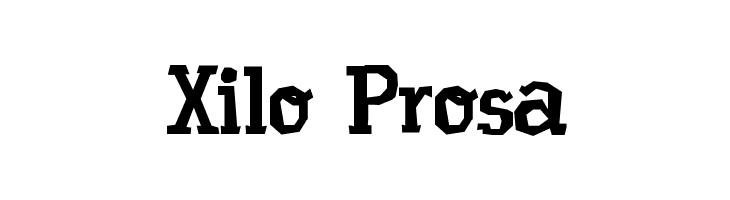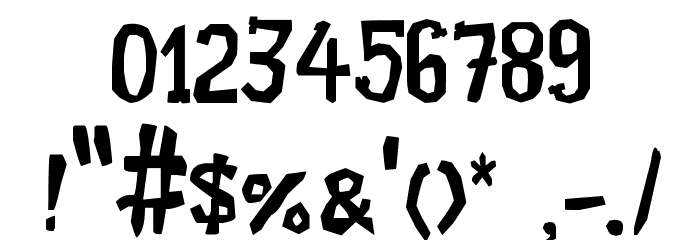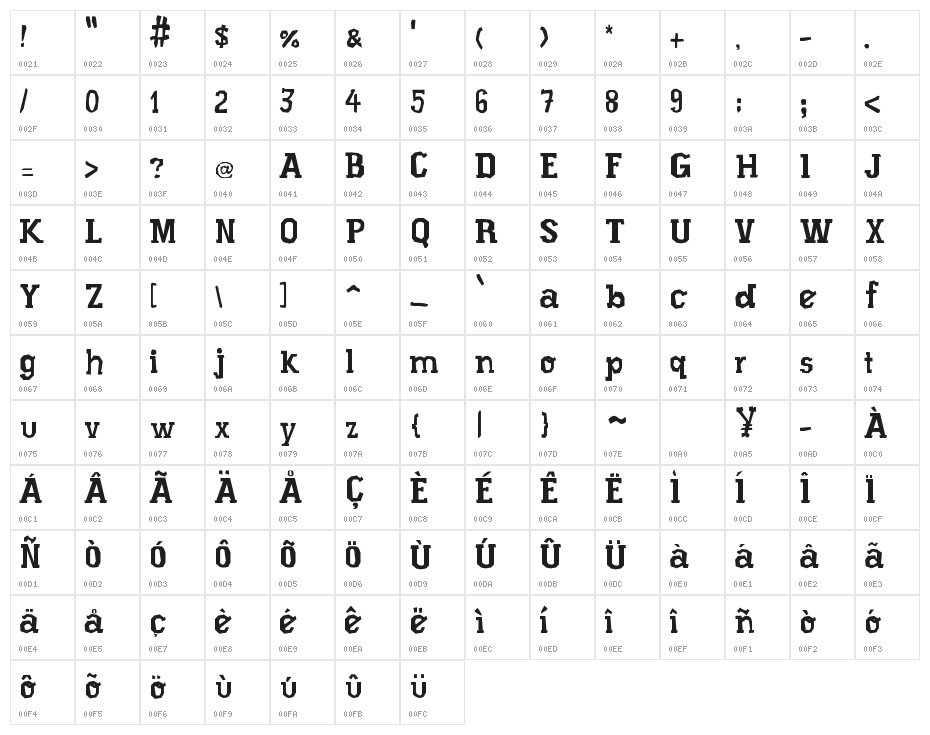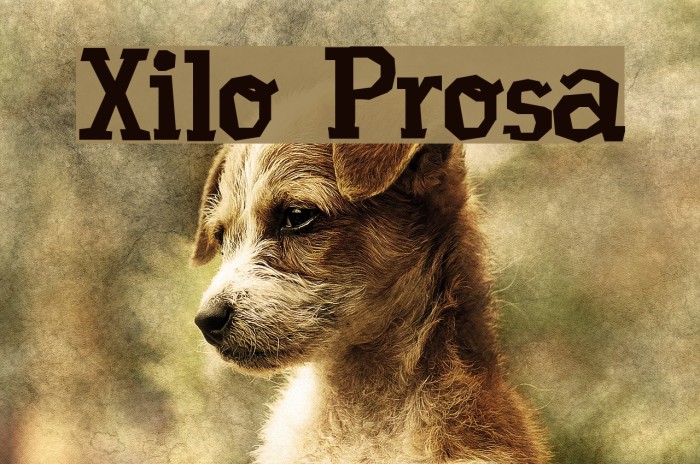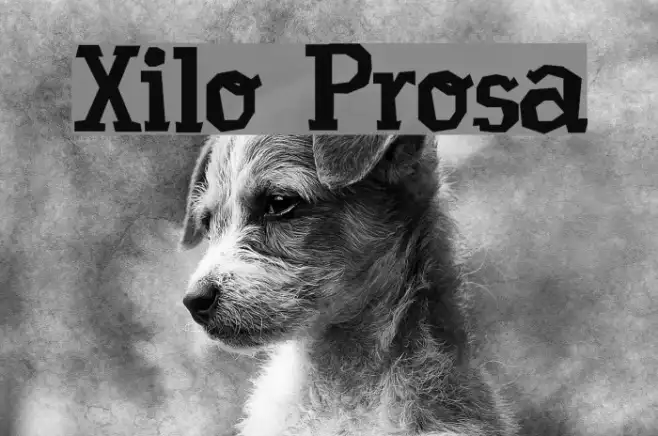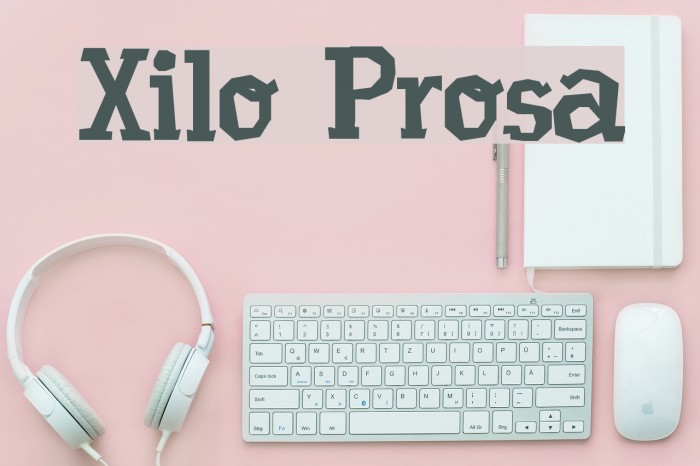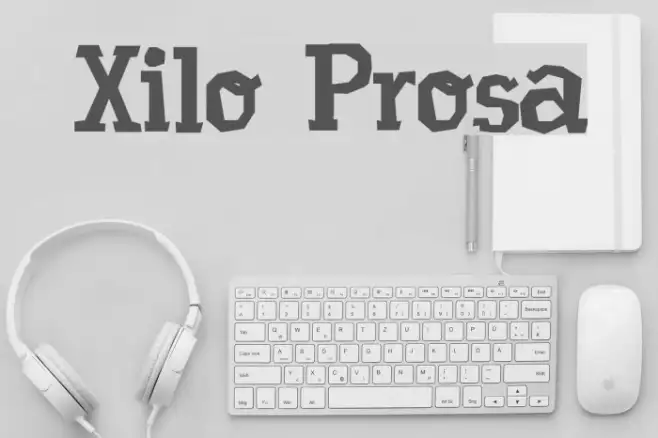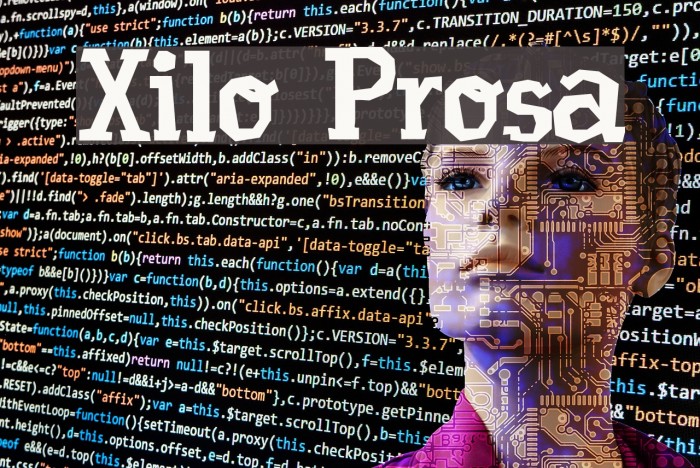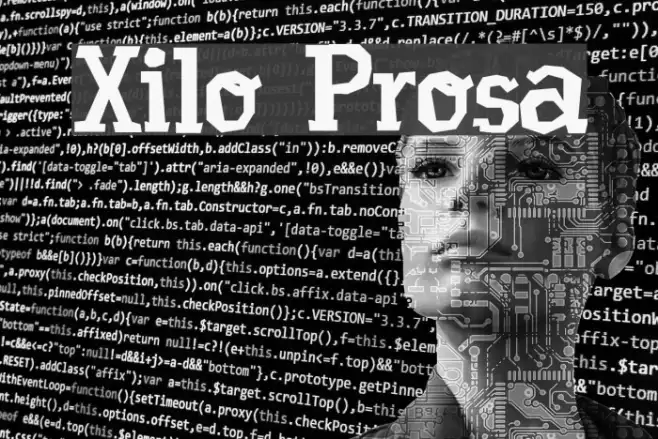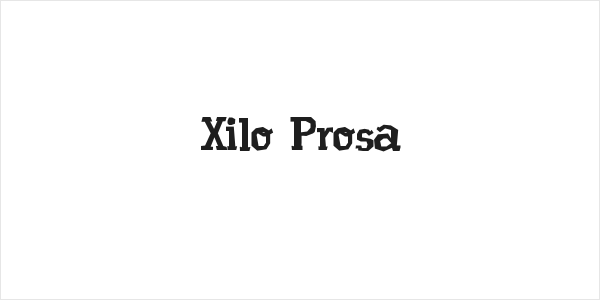
Xilo Prosa Font
Xilo Prosa Description
This font features a bold and rugged design with a distinctly handcrafted appearance. The characters exhibit irregular edges and a slightly distressed look, giving it an organic and tactile feel. The uppercase letters are robust and commanding, while the lowercase letters maintain a consistent style with a slightly more subdued presence. The numerals are clear and legible, matching the overall aesthetic with their bold strokes. Special characters are creatively designed, maintaining the font's unique style. This font's rough and artistic nature makes it ideal for projects that require a touch of authenticity and creativity.
| Proposed Projects | Ideal for branding, posters, album covers, and any project requiring a bold, artistic touch. |